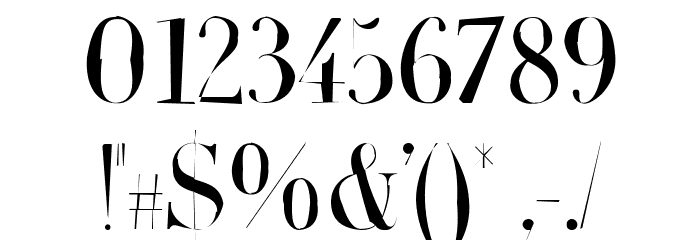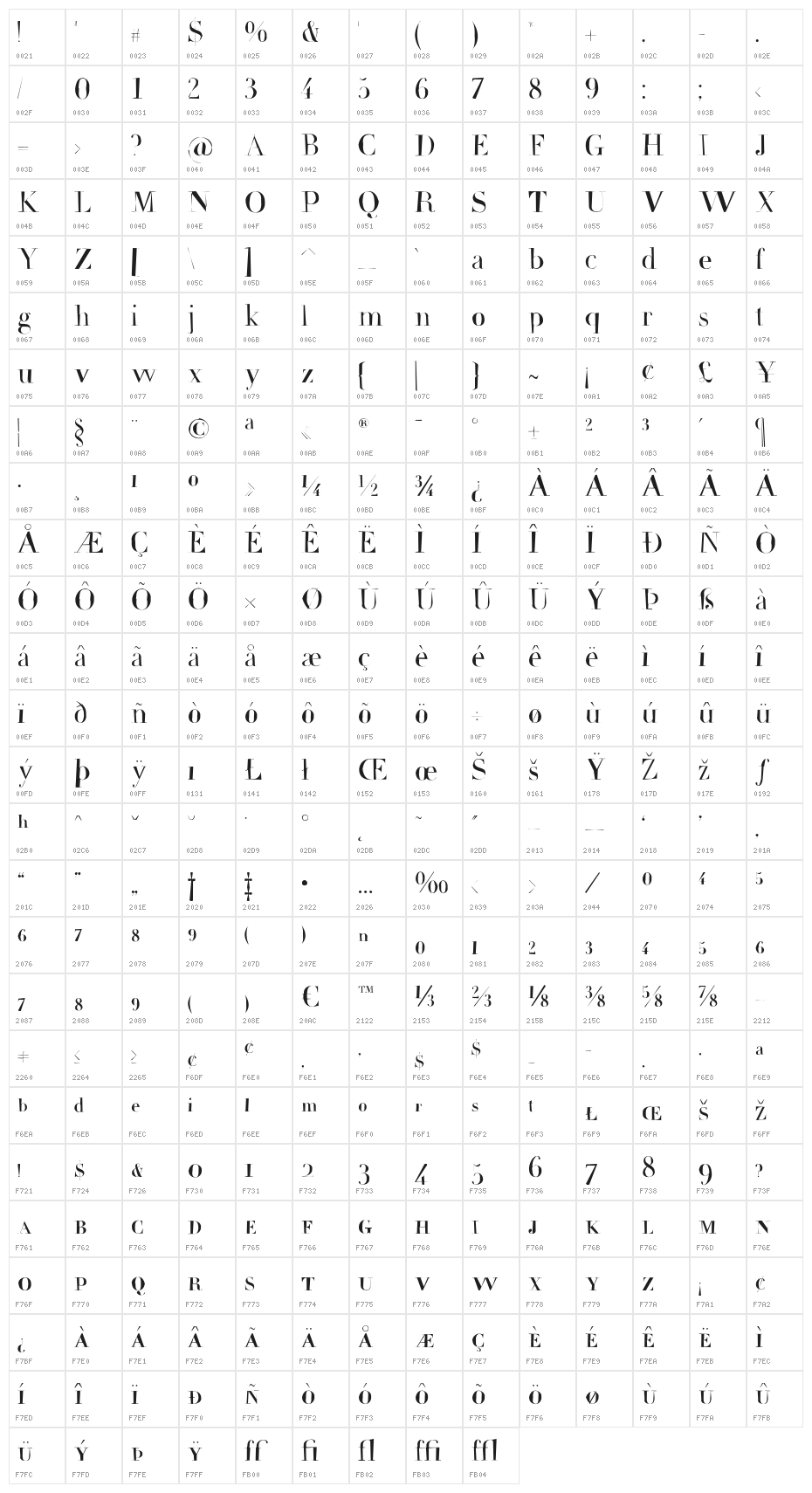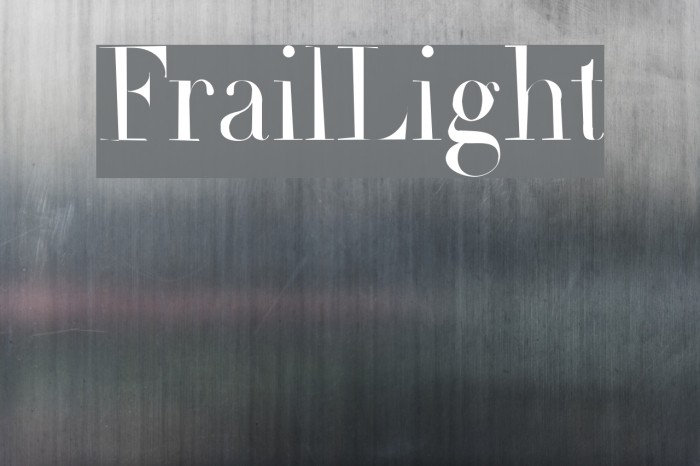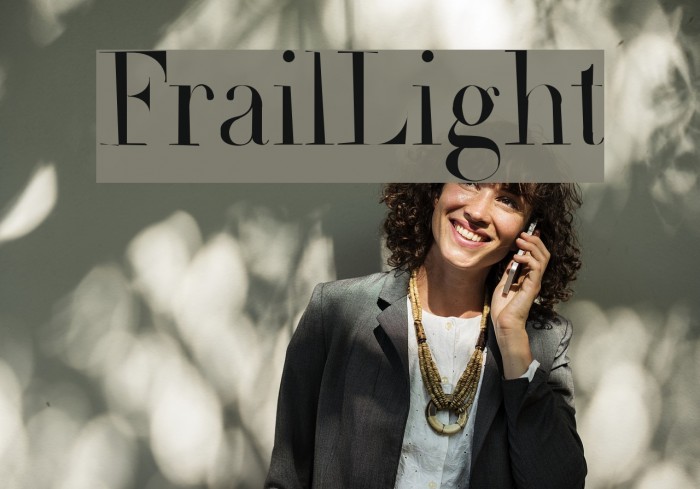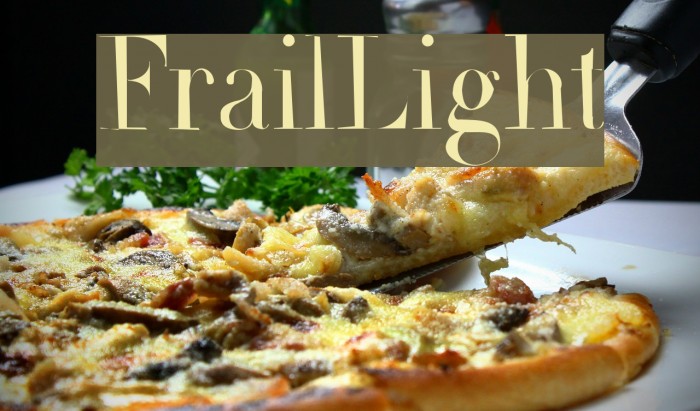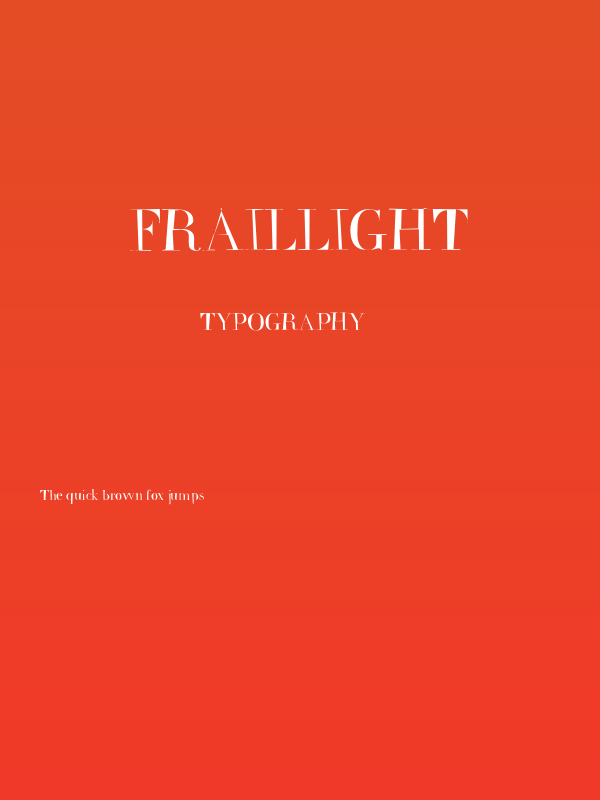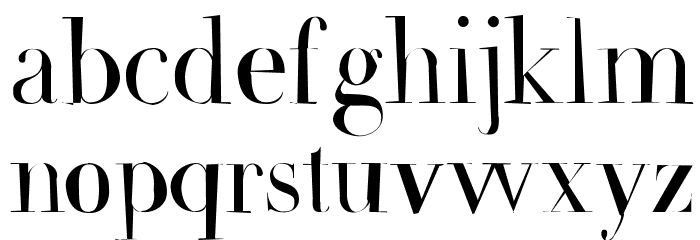
FrailLight Font
FrailLight Description
This font features a distinctive blend of elegance and modernity, characterized by its high contrast between thick and thin strokes. The uppercase letters exhibit a refined, elongated form with sharp serifs, while the lowercase letters maintain a consistent style, offering a harmonious flow. The numerals are bold and clear, ensuring readability. Special characters are crafted with the same attention to detail, making them suitable for various design needs. The overall aesthetic is sophisticated, making it ideal for projects that require a touch of class and modernity.
| Use Case | Headlines, Logos, Editorial design |
| Proposed Projects | Ideal for luxury branding, editorial design, wedding invitations, and high-end product packaging. |